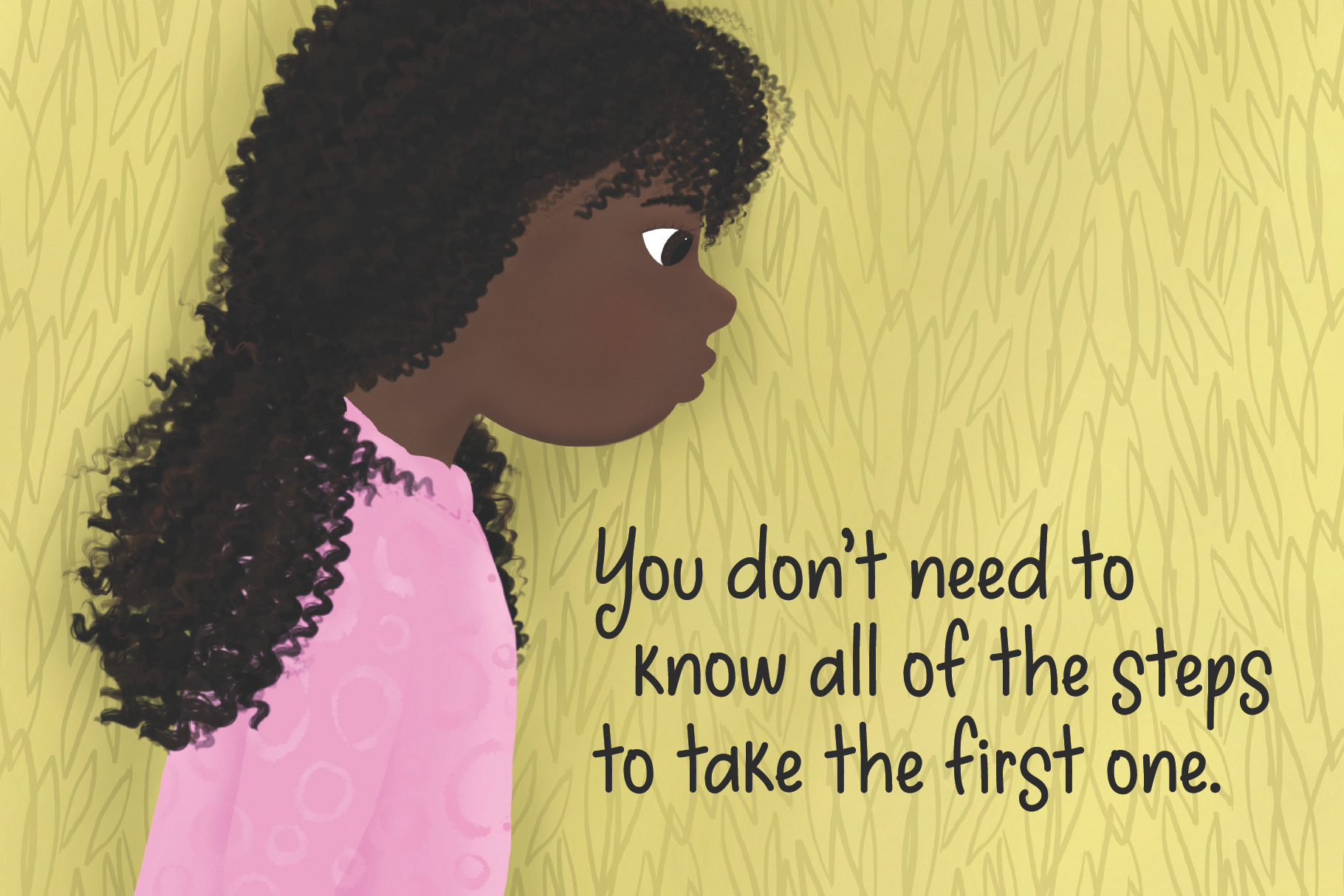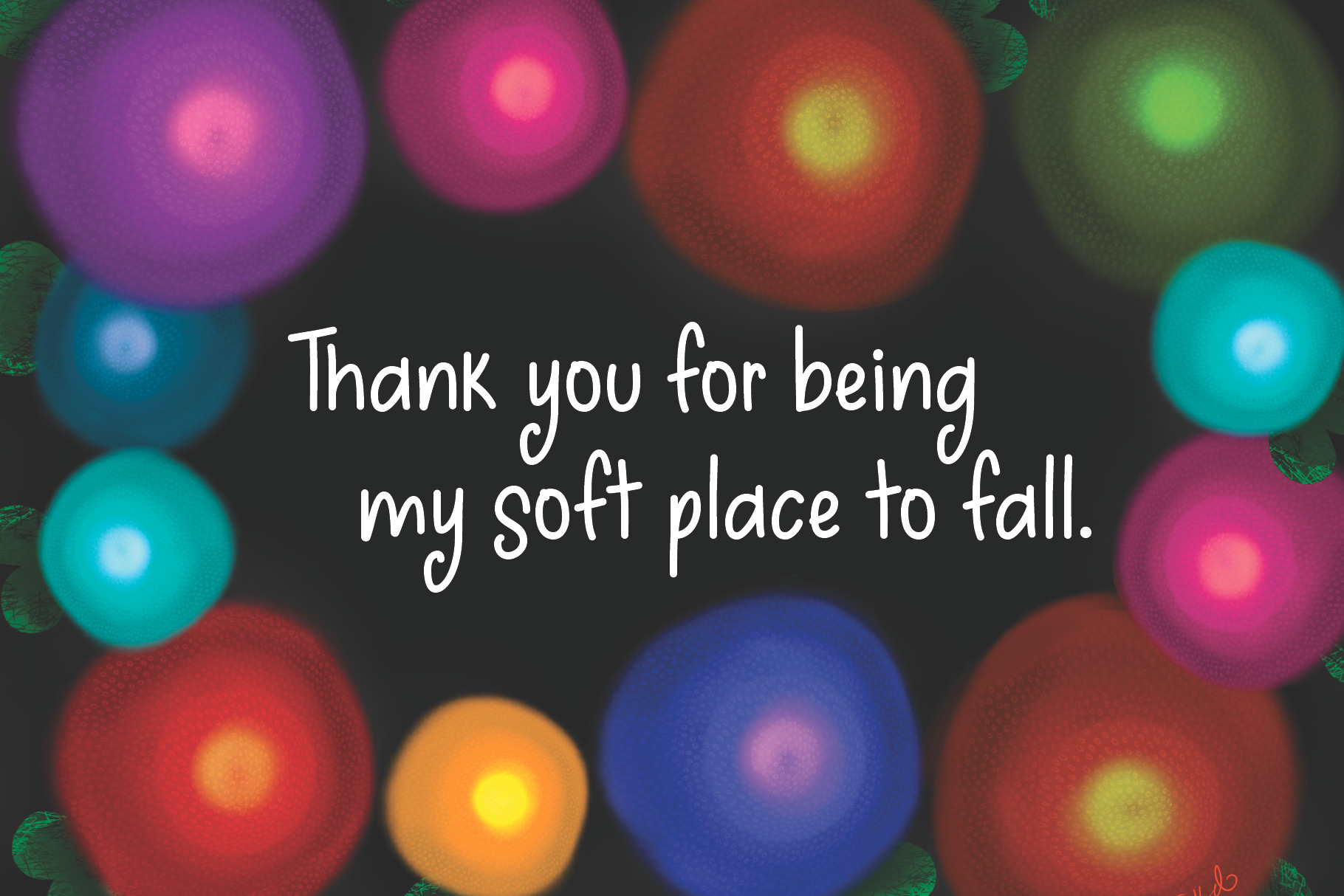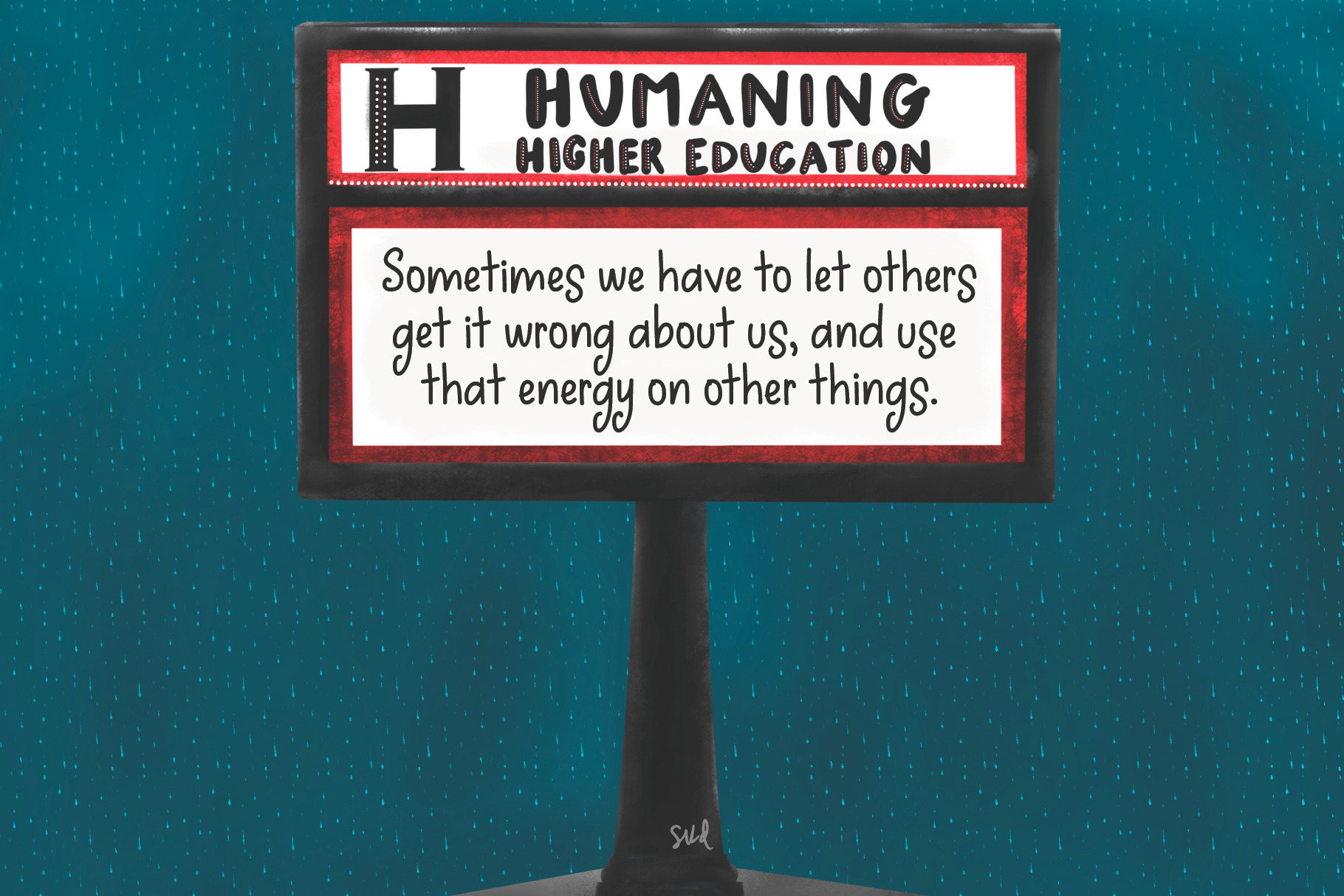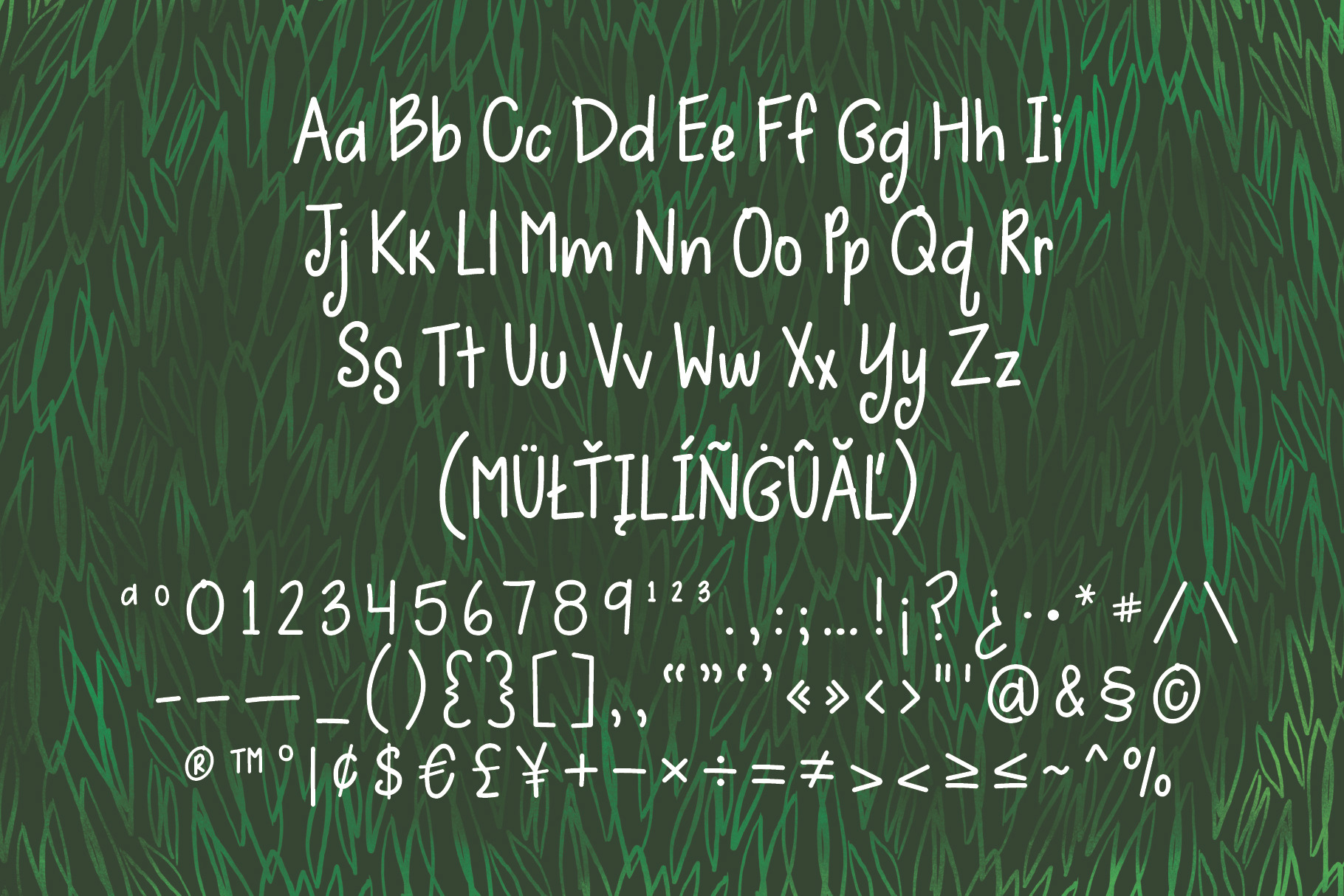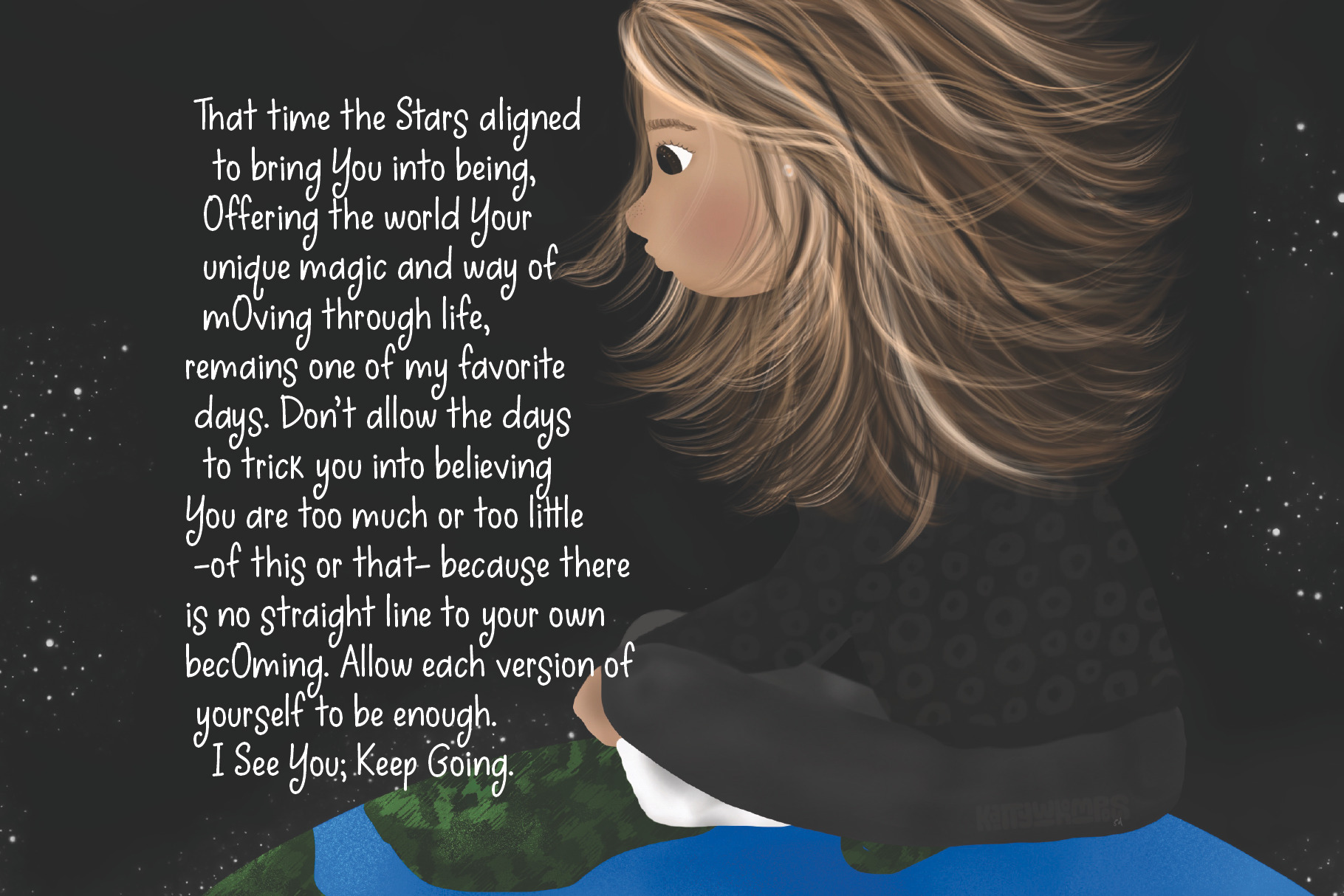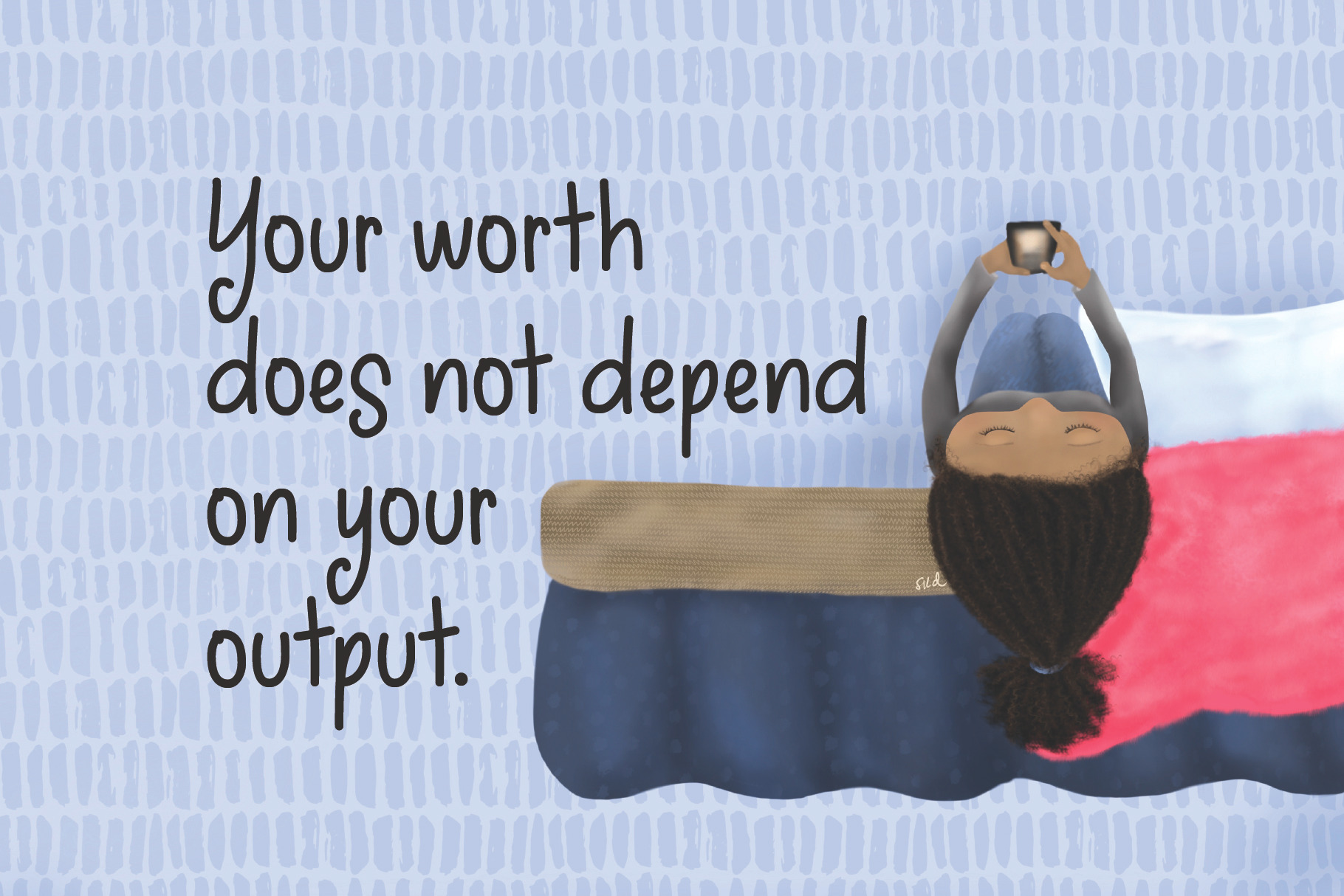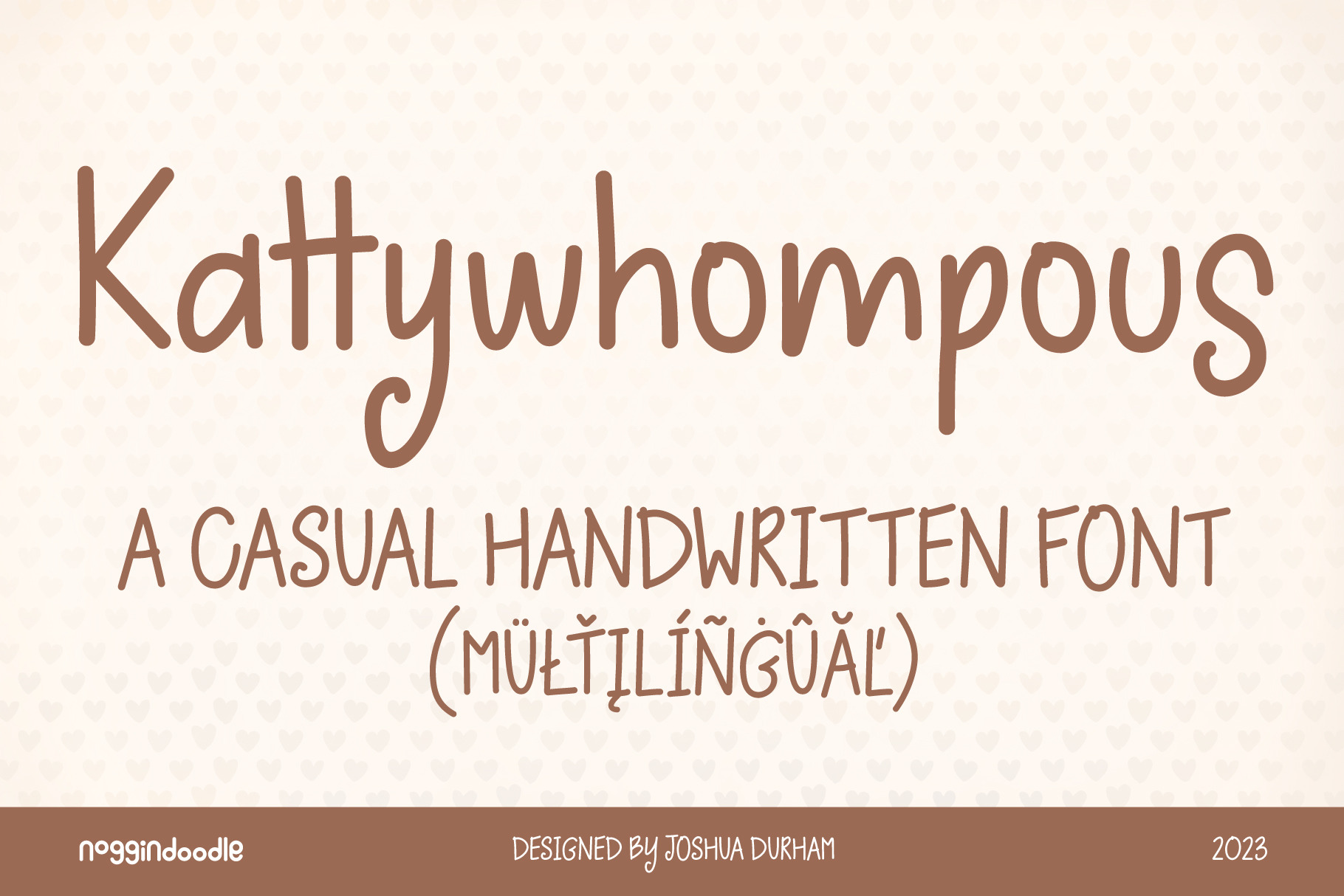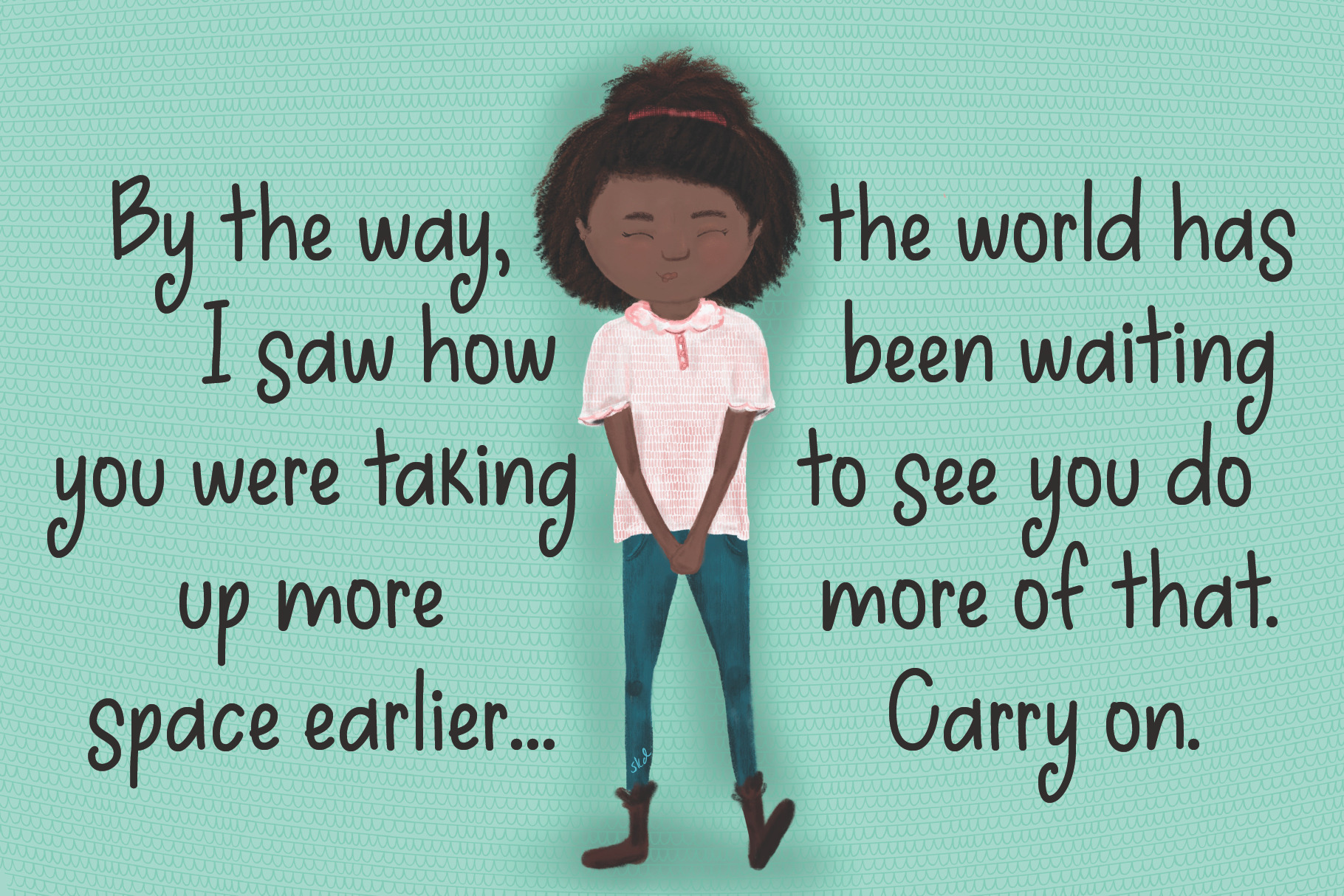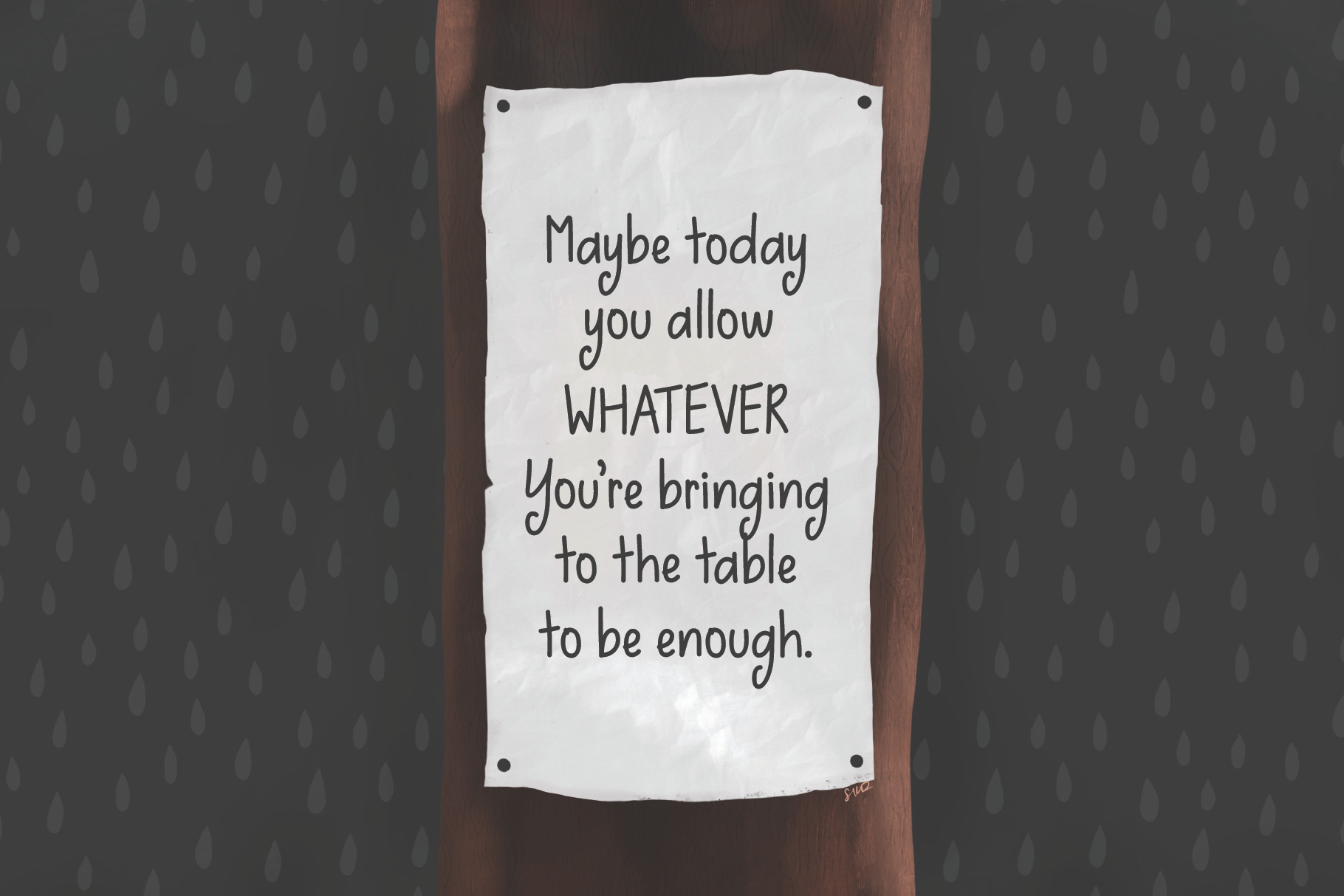
Kattywhompous - Handwritten Font by Noggindoodle | Creative Market
Kattywhompous is a fun handwritten font with swooping descenders and unique characters. It is based on the handwriting and illustrations of Sarah Durham at Kattywhompus.com. Kattywhompous supports 92 Latin-based languages. | Kattywhompous - Handwritten Font | noggindoodle